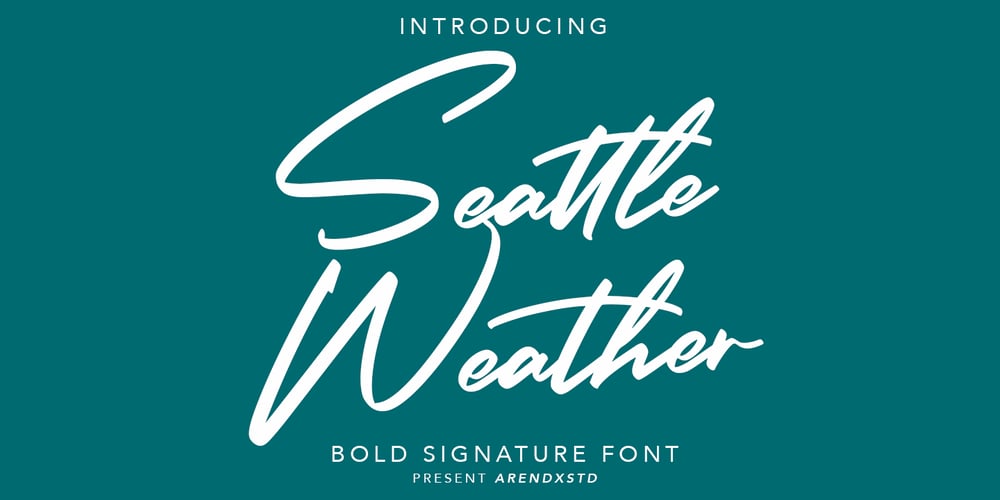
Seattle Weather Font Family was designed by Asep Rendi and published by Arendxstudio. Seattle Weather contains 1 styles and family package options. Seattle Weather was inspired by urban script fonts. The sharp and beautiful letter forms create glyphs that are modern, trendy and elegant. Seattle Weather comes with OpenType features such stylistic alternates, stylistic sets and ligatures and is great for logotypes, posters, badges, book covers, tshirt design, packaging and many more.Features : • Character Set A-Z • Numerals & Punctuations (OpenType Standard) • Accents (Multilingual characters) • Ligatures• Alternates